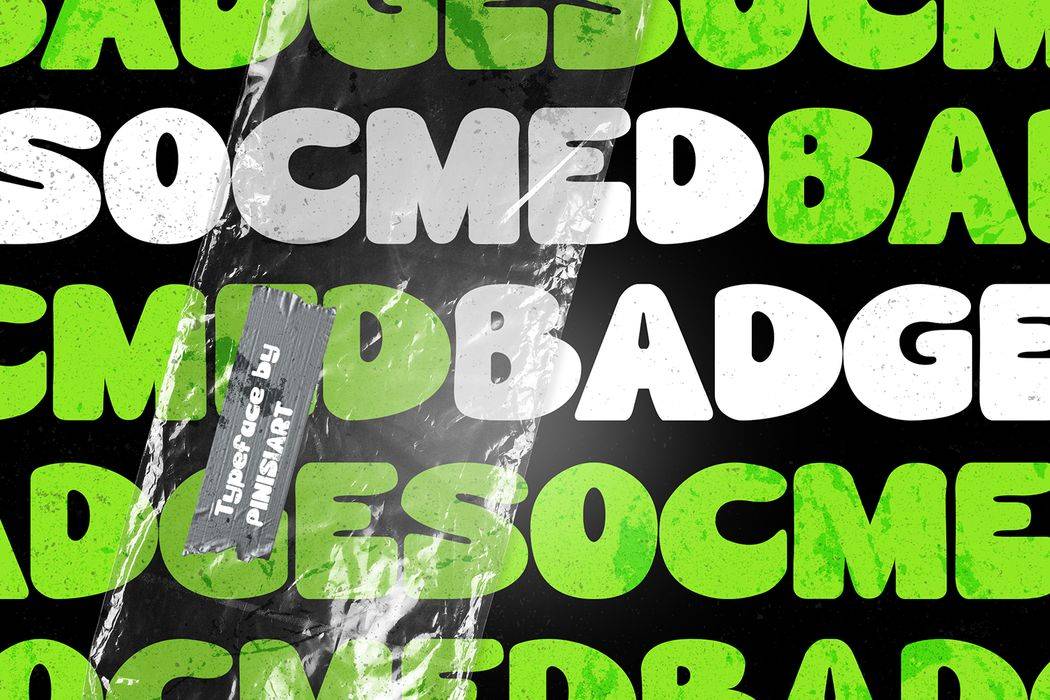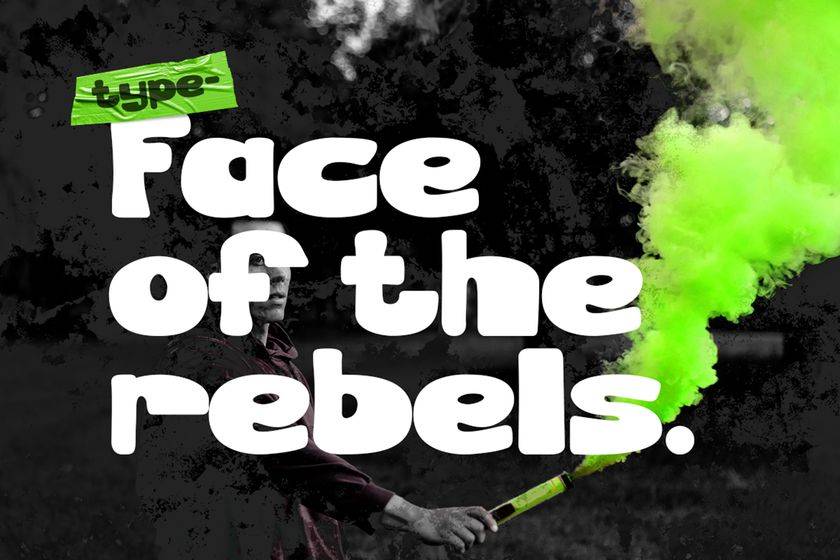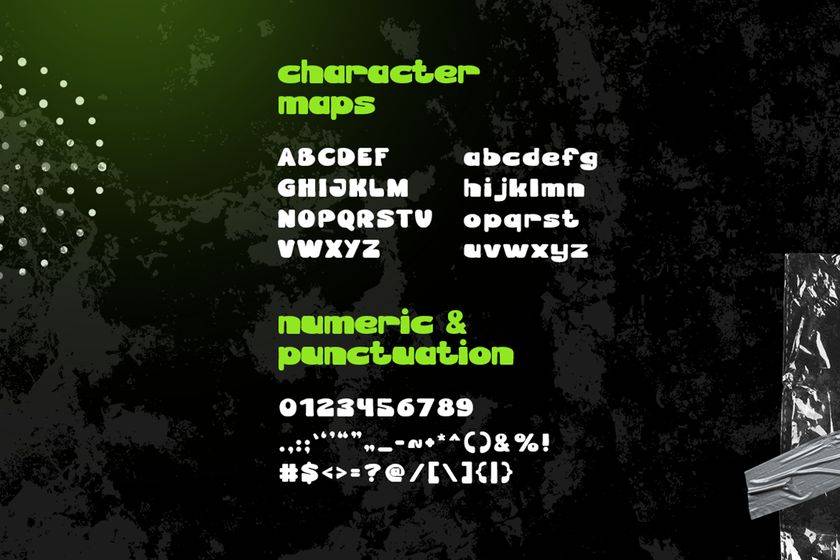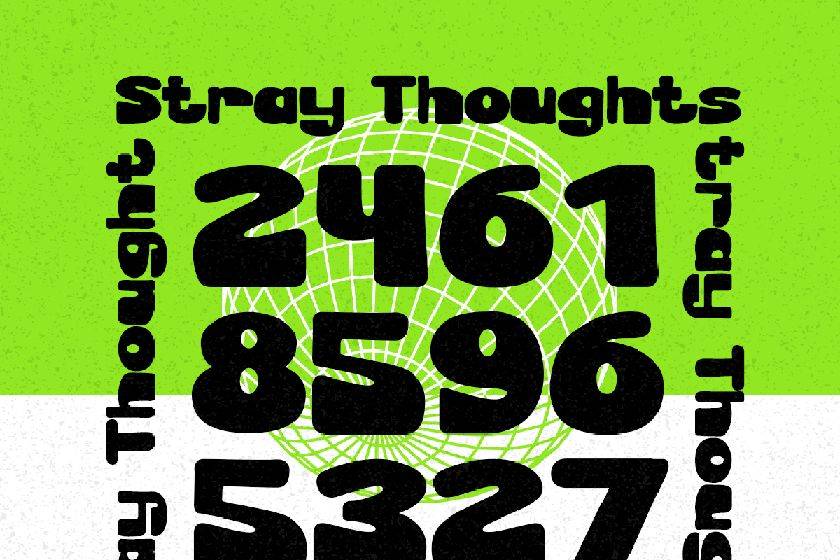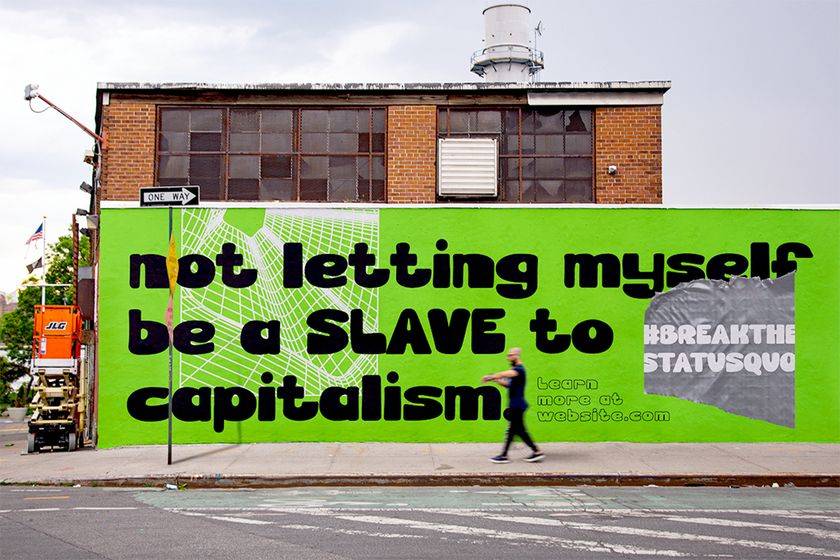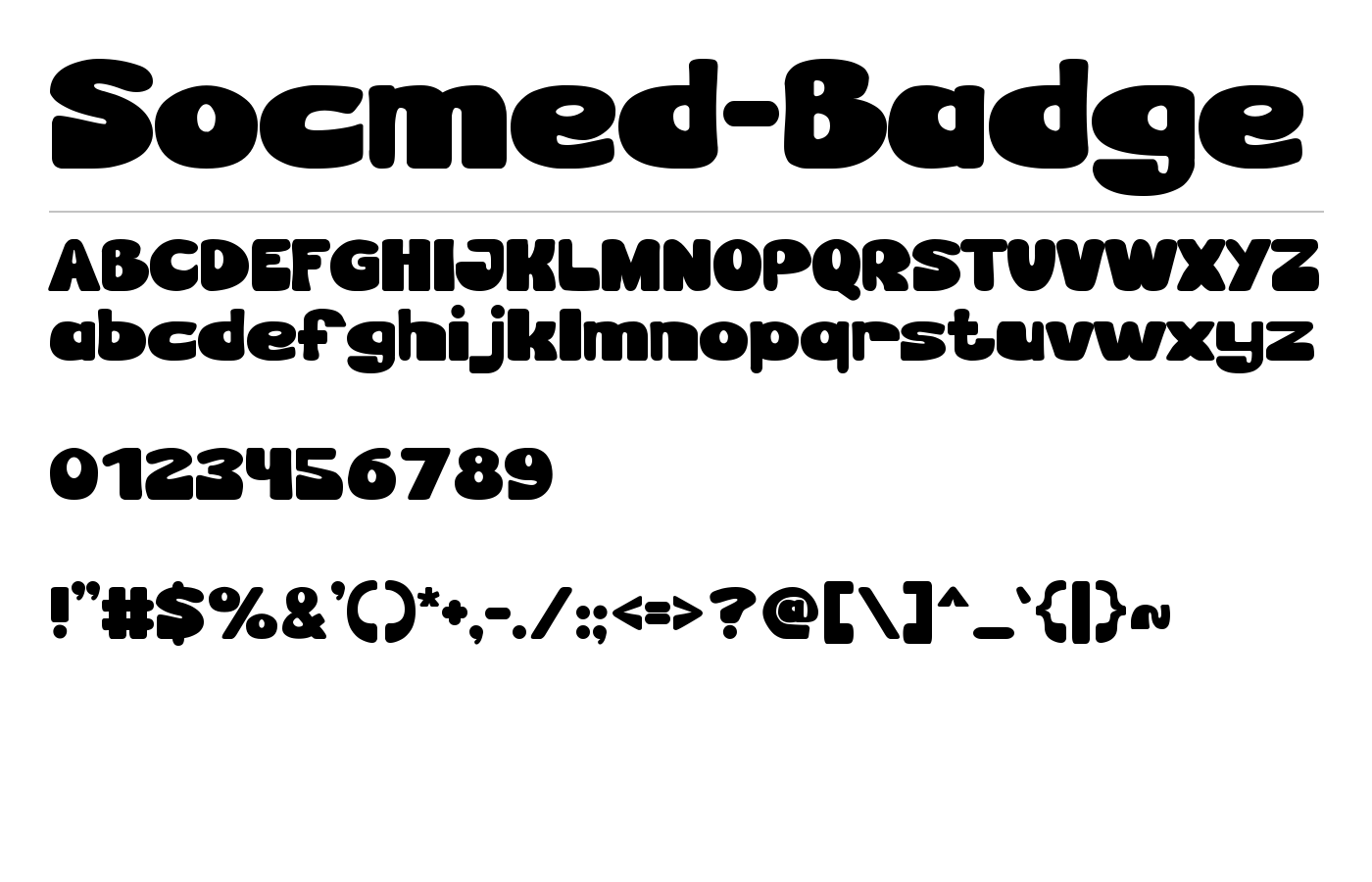
Socmed Badge is a bold, rounded sans serif font with a playful and friendly personality. Its thick, uniform strokes and high x-height create a strong, approachable feel, making it ideal for logos, badges, headlines, and branding that seek a modern yet fun vibe. This font works especially well where a casual, eye-catching style is needed to connect with a youthful audience.
Socmed Badge Font
About Socmed Badge Font